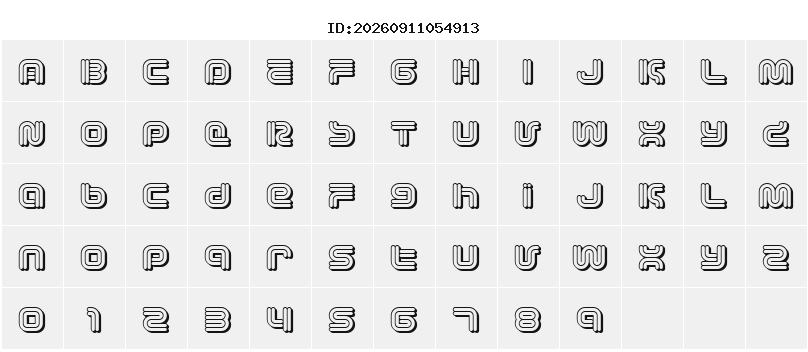
• Font Name: Vectroid Cosmo
• Designer: Andreas Nylin
About Vectroid Cosmo.ttf
Vectroid Cosmo.ttf is a modern, elegant sans-serif font designed for ultimate readability and visual harmony. Perfect for branding, headlines, web design, and print materials.